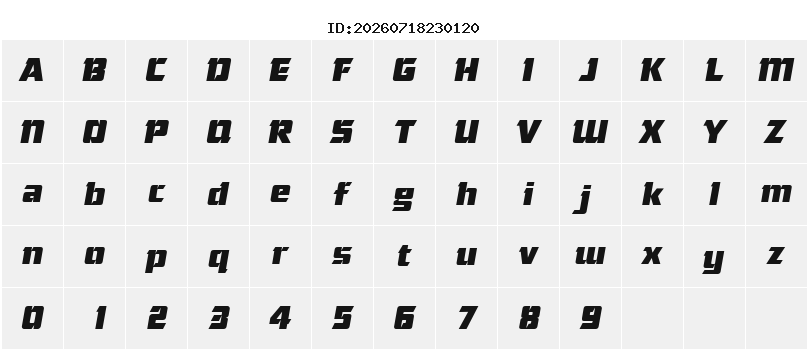
• Font Name: Cornered
Cornered.ttf is a modern, elegant sans-serif font designed for ultimate readability and visual harmony. Perfect for branding, headlines, web design, and print materials.